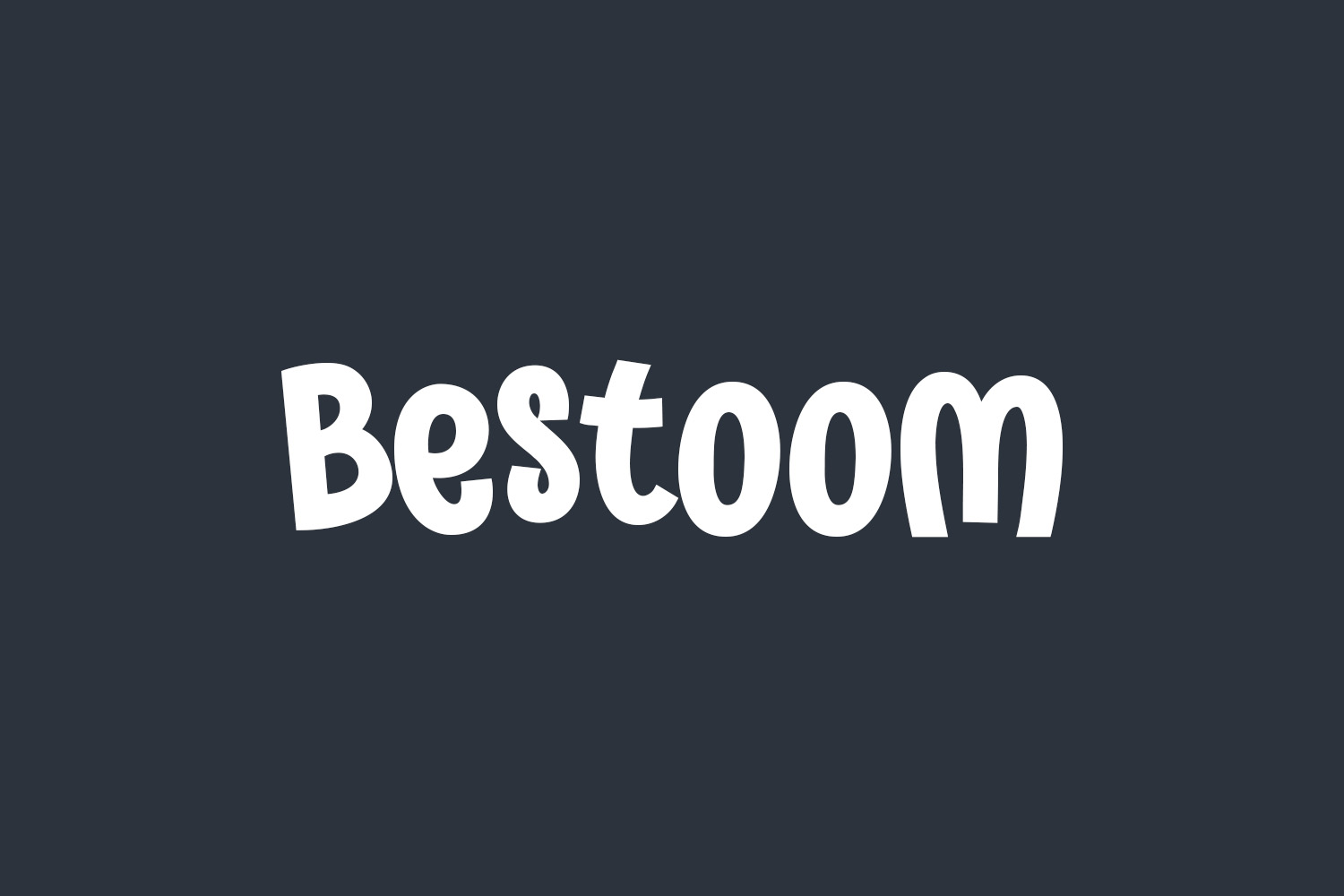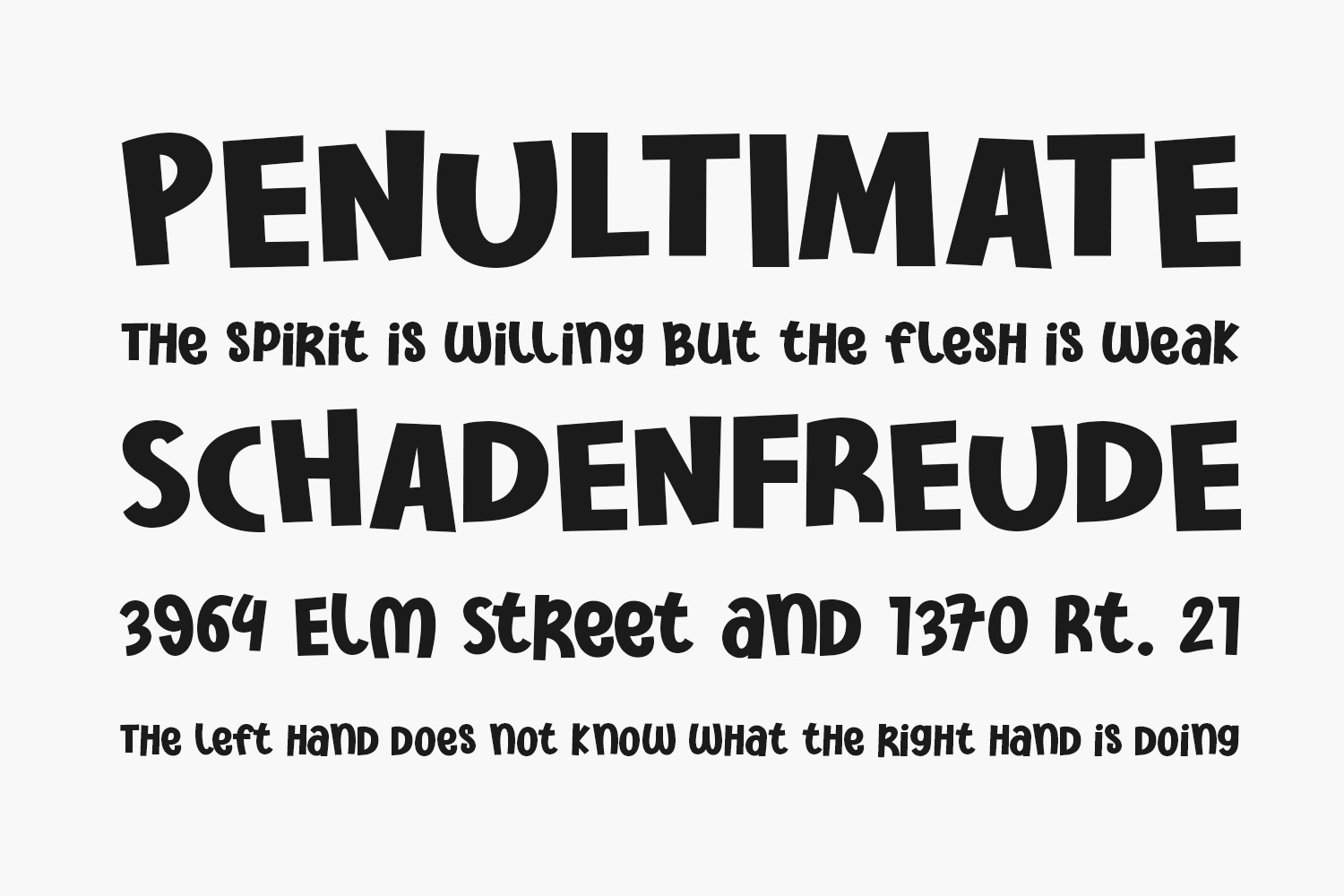
Explore the delightful and whimsical Bestoom Free Font display font. Perfect for cartoon-themed designs, children’s games, or any project in need of a charming touch, this font is a fantastic selection that adds a playful vibe to your creations. Bestoom Free Font is free for personal use only. Please purchase the full version for commercial use.